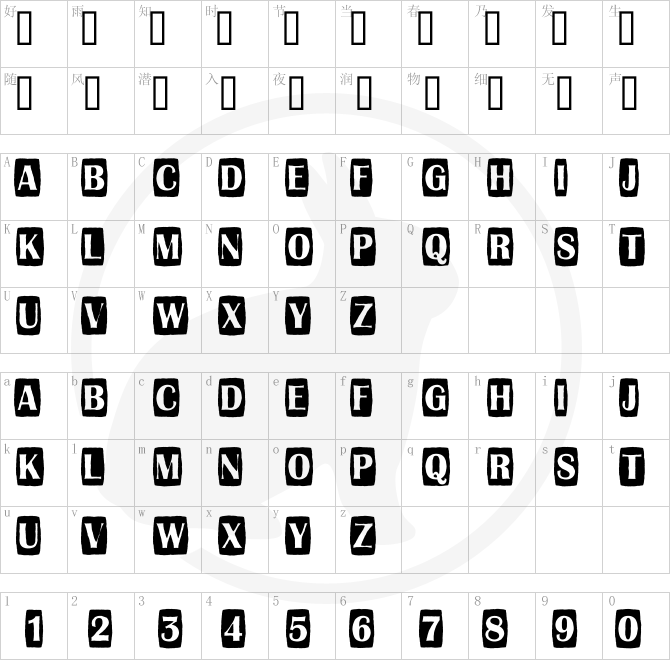
a_AlbionicTitulCmJgg.ttf is a very beautiful artistic font, a_AlbionicTitulCmJgg.ttf is widely used in the design and printing of various books and pictures,a_AlbionicTitulCmJgg.ttf has a strong visual impact,a_AlbionicTitulCmJgg.ttf is a commonly used font in newspapers, magazines and books, and is used in posters, e-commerce Poster design, store design, logo design, font design and other fields.a_AlbionicTitulCmJgg.